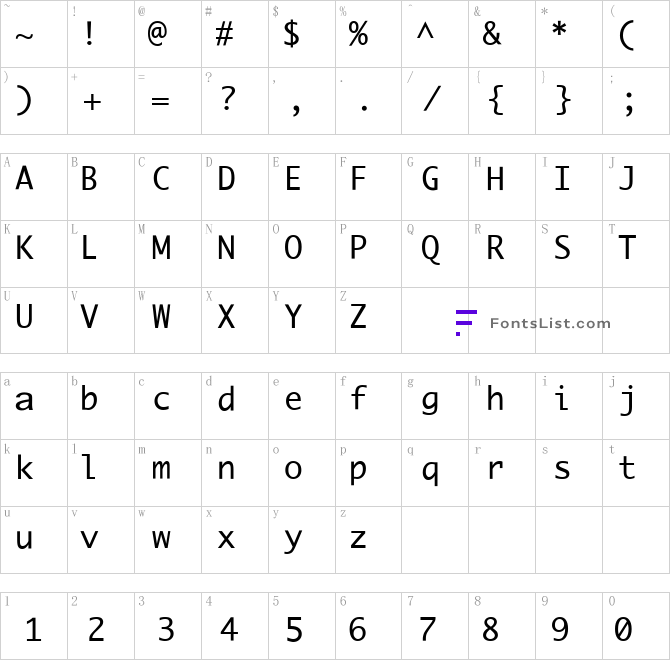
- Font Name:osaka_unicode
- Full Name:Apple osaka_unicode
Apple-osaka_unicode.ttf is a very beautiful artistic font, Apple-osaka_unicode.ttf is widely used in the design and printing of various books and pictures,Apple-osaka_unicode.ttf has a strong visual impact,Apple-osaka_unicode.ttf is a commonly used font in newspapers, magazines and books, and is used in posters, e-commerce Poster design, store design, logo design, font design and other fields.Apple-osaka_unicode.